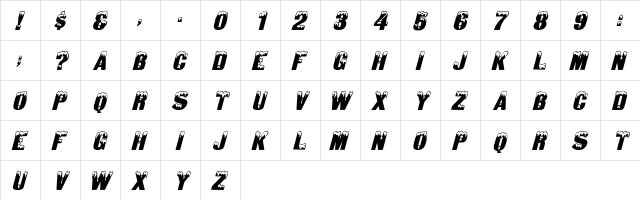
IglooCaps Italic Italic
Design Context for IglooCaps Italic Typeface
IglooCaps Italic is a composed and adaptable typeface that performs quietly and consistently across a wide range of design contexts. The slanted form adds forward momentum and visual energy.
Pro Tip: Try IglooCaps Italic for annotation and caption copy alongside an upright companion — the contrast in angle creates a dynamic but ordered typographic system.